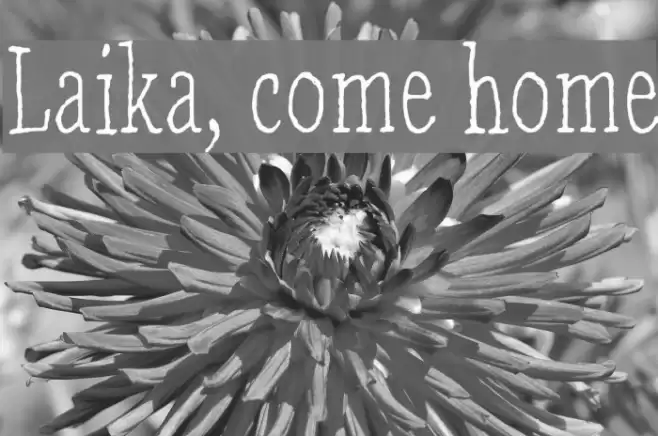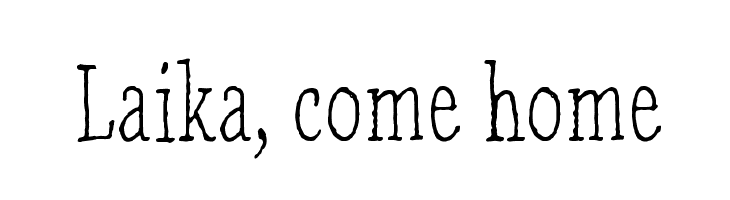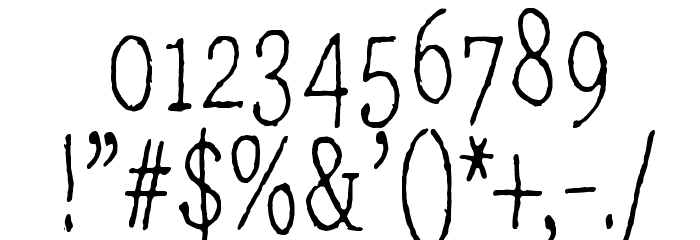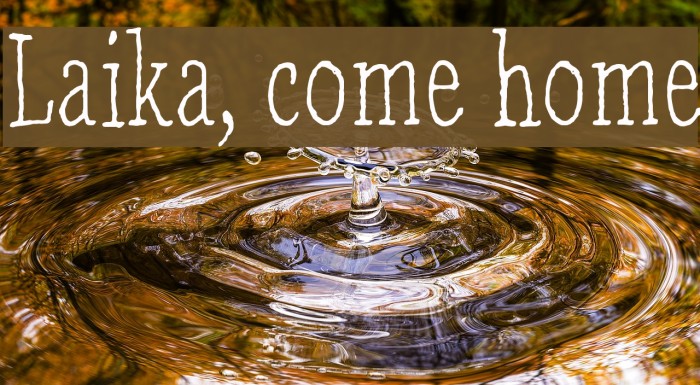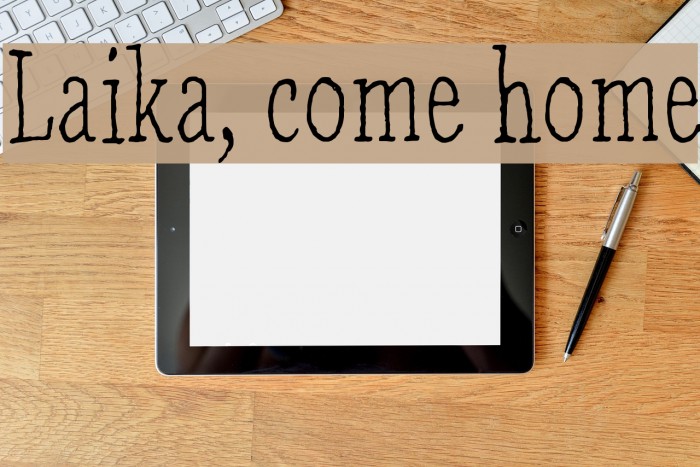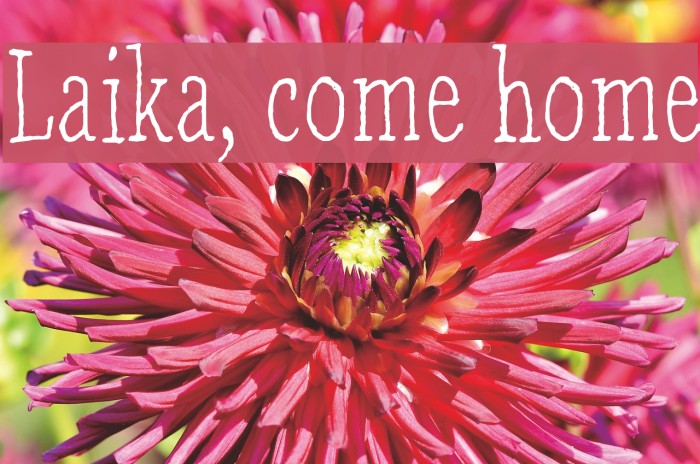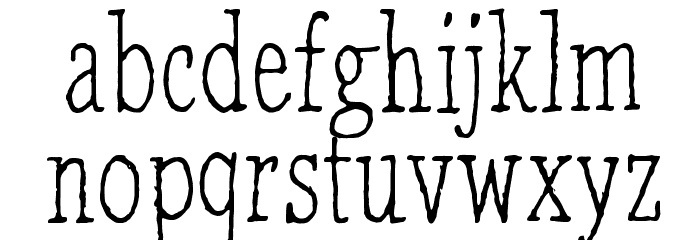
Laika, come home Font
Laika, come home Description
This font exhibits a hand-drawn, rustic charm with its uneven lines and slightly irregular character shapes, giving it a whimsical and organic feel. The uppercase letters are tall and narrow, while the lowercase letters maintain a consistent height, contributing to a cohesive yet playful appearance. The numerals and special characters follow the same hand-crafted aesthetic, ensuring a uniform style throughout. The strokes are moderately thick, with slight variations that add to the font's character without compromising legibility. This font is ideal for projects that require a touch of personality and warmth, such as invitations, greeting cards, or creative branding.
A hand-drawn, rustic font with whimsical, uneven lines and organic character shapes from Uncategorized fonts.
- Proposed Projects: Ideal for invitations, greeting cards, creative branding, and any project needing a personal touch.